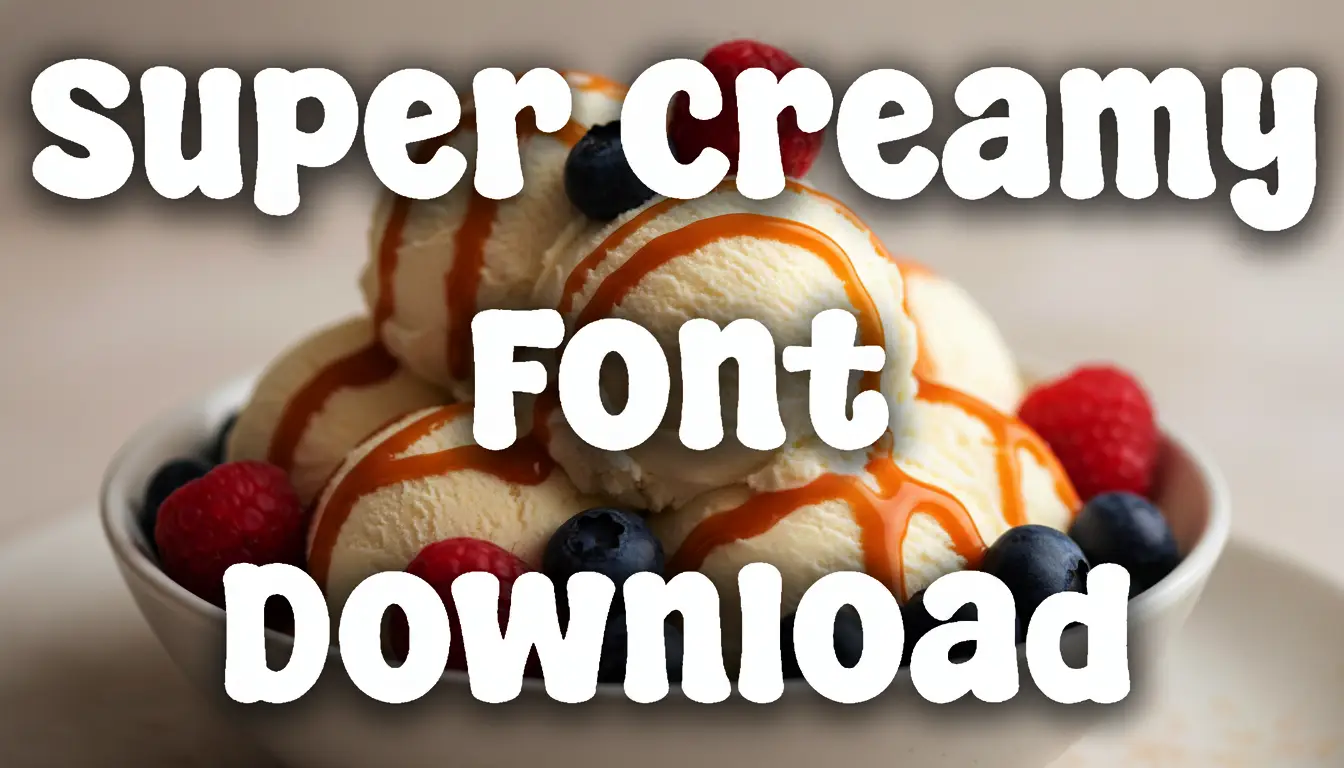
Super Creamy Font
Super Creamy
Super Creamy is a fancy font. It's a decorative display font with plenty of personality, made to grab attention. It's a free download, and you can try it with your own text in the preview above first.
What You Can Type With Super Creamy
With complete upper and lowercase letters and all ten digits, Super Creamy is ready for real wording, not just a single headline. Common punctuation such as &, !, ? and @ is included as well. It also has the accented letters you need for Spanish, French, German, Portuguese and Italian.
Where Super Creamy Works Best
Think of Super Creamy for posters, logos and eye-catching headlines. Use it for one standout word or headline and let simpler fonts handle the rest.
Does Super Creamy support accented letters?
Yes. Super Creamy includes the accented letters needed for Spanish, French, German, Portuguese and Italian, so it works for more than just English.